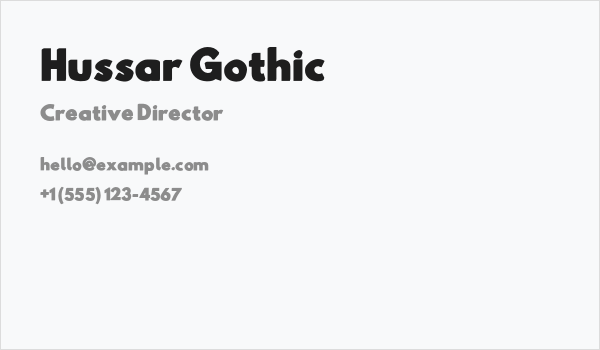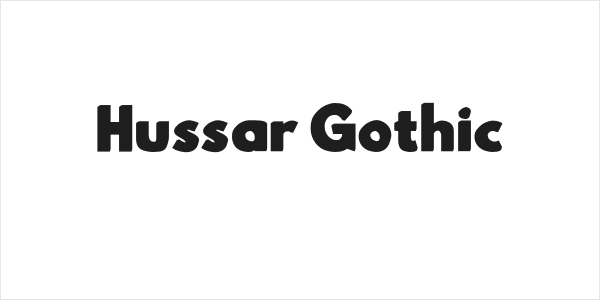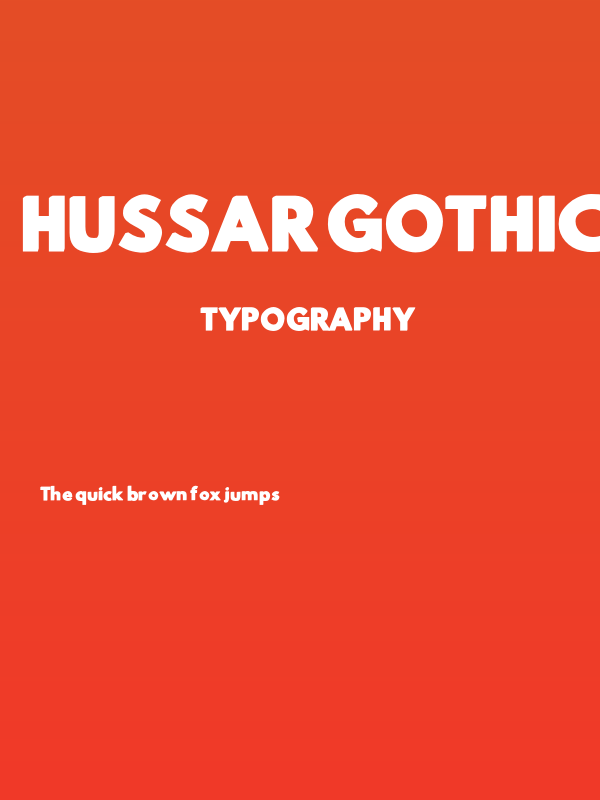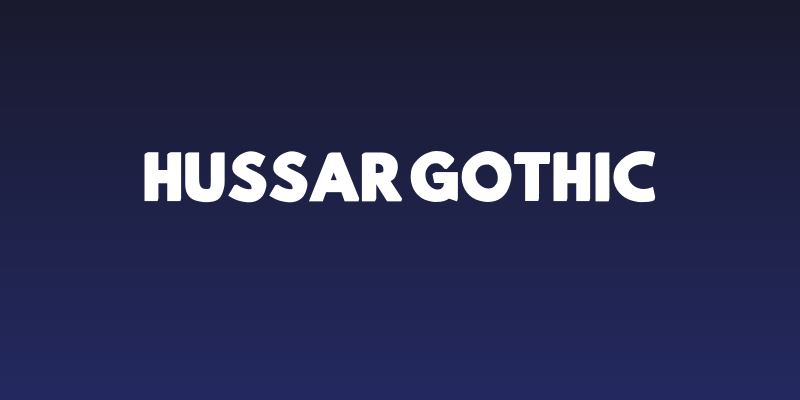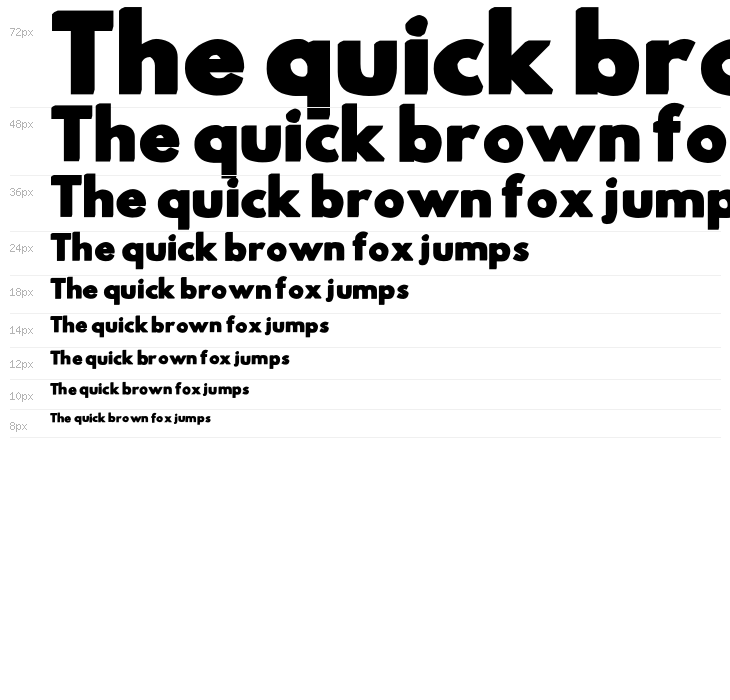
Hussar Gothic Font
Hussar Gothic Description
This font features a bold and striking design with thick, uniform strokes that give it a strong presence. The characters are well-defined with a geometric influence, evident in the consistent width and clean lines. The uppercase letters are particularly commanding, while the lowercase letters maintain a similar weight, ensuring readability and impact. The numbers are equally bold, making them stand out in any context. Special characters are included, maintaining the same bold aesthetic. This font is ideal for projects that require a strong visual impact.
| Proposed Projects | Ideal for headlines, posters, branding, and any design requiring a bold statement. |